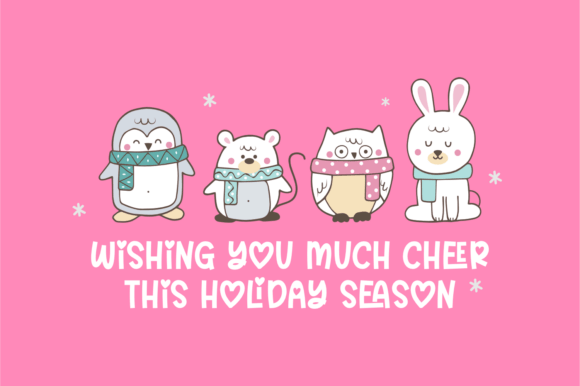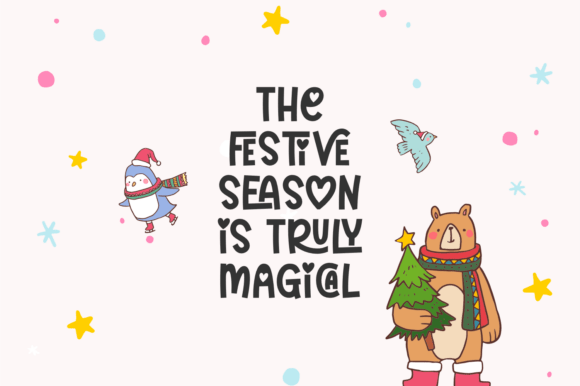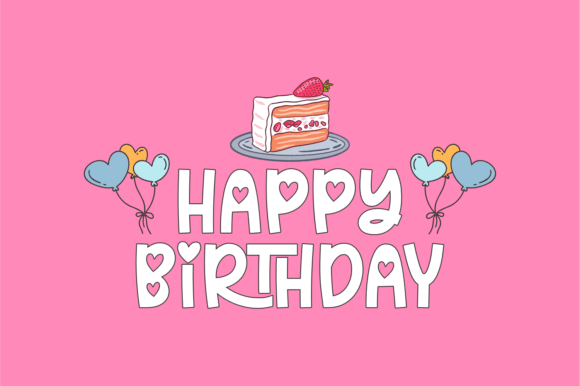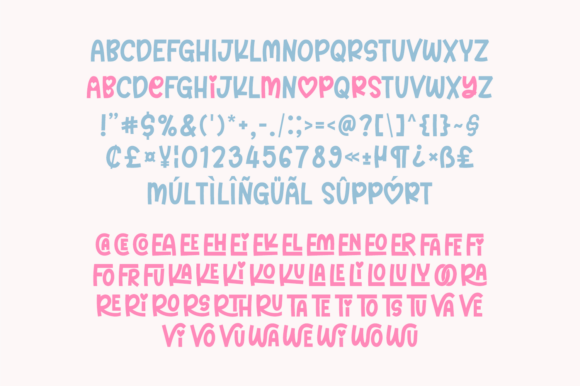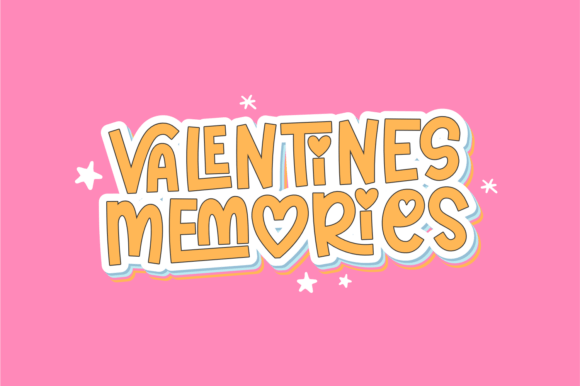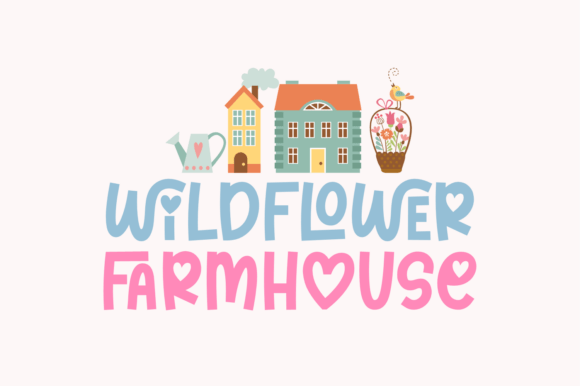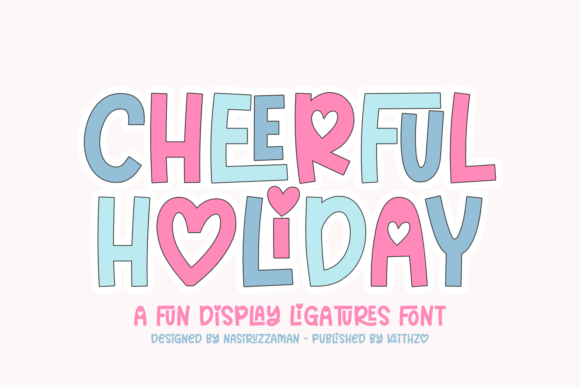
Introducing Cheerful Holiday: The Ultimate Festive Font for Joyous Designs
Are you looking for a font that embodies the spirit of joy, affection, and playfulness? Look no further than “Cheerful Holiday”, the perfect display typeface for all your festive and celebratory design needs. This all-caps font is designed to enchant, with bold, curved strokes and an irresistible color palette that makes for a truly eye-catching display.
Unleash the Spirit of Delightful Fun
“Cheerful Holiday” is more than just a font – it’s an experience. It’s a way to add a dash of charm to your projects, making them truly unforgettable. Whether you’re working on children-related, holiday-themed, or celebratory endeavors, this font is the perfect choice. Its playful aura and joyful vibe make it an excellent fit for brands with a sweet and friendly persona.
The versatility of “Cheerful Holiday” is one of its most appealing features. This font can be used in a wide range of design applications, from:
- T-shirt designs: Add a touch of festive fun to your apparel designs with this memorable typeface.
- Vinyl crafts: Create eye-catching vinyl decals and stickers that will stand out from the crowd.
- Sublimation products: Give your sublimation products a lively character with this cheerful font.
- Posters and greeting cards: Add a dash of magic to your posters and greeting cards, making them perfect for birthday wishes, festive greetings, or sentimental Valentine’s notes.
- Children’s book covers: Create a captivating cover for your children’s book that will draw in young readers.
Why Choose Cheerful Holiday?
So, what sets “Cheerful Holiday” apart from other fonts? Here are just a few reasons why designers and crafters love this font:
- Unique and playful design: The bold, curved strokes and irresistible color palette make for a truly eye-catching display.
- All-caps font: Perfect for creating bold and attention-grabbing designs.
- Easy to read: Despite its playful design, “Cheerful Holiday” is easy to read, making it perfect for use in a variety of design applications.
- Versatile: Use this font in a wide range of design applications, from digital designs to print materials.
Tips for Using Cheerful Holiday
To get the most out of “Cheerful Holiday”, here are a few tips:
- Use it sparingly: While “Cheerful Holiday” is a beautiful font, it’s best used sparingly. Use it as a headline or title font, and pair it with a simpler font for body text.
- Experiment with colors: The color palette of “Cheerful Holiday” is one of its most appealing features. Experiment with different colors to find the perfect combination for your design.
- Pair it with other fonts: Don’t be afraid to pair “Cheerful Holiday” with other fonts to create a unique and interesting design.
In conclusion, “Cheerful Holiday” is the perfect font for designers and crafters looking to add a dash of joy and playfulness to their designs. With its unique and playful design, all-caps font, and versatility, it’s the perfect choice for a wide range of design applications. So why wait? Download “Cheerful Holiday” today and start creating joyful and unforgettable designs!